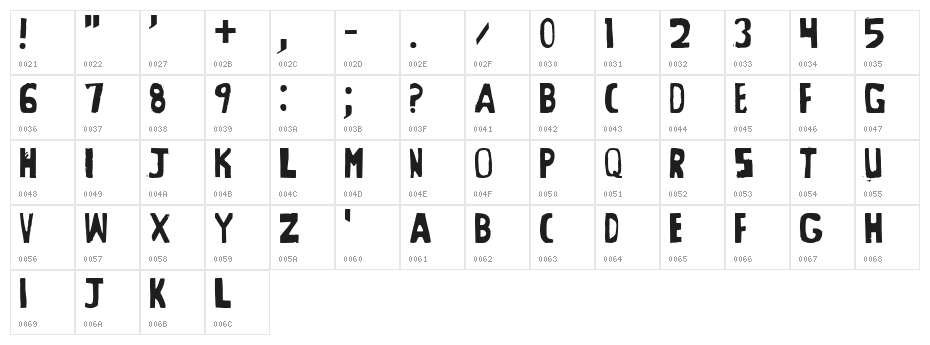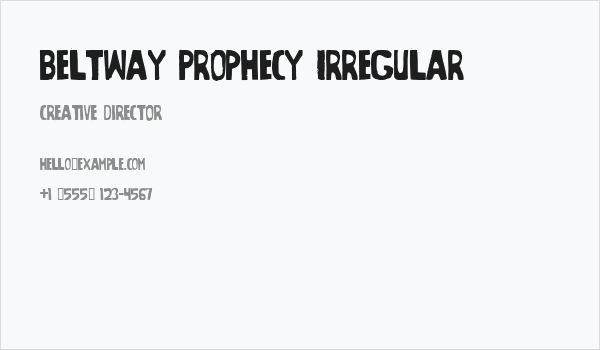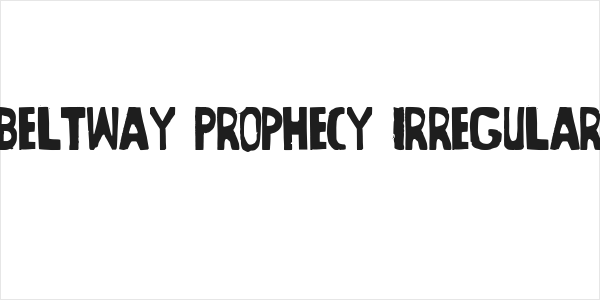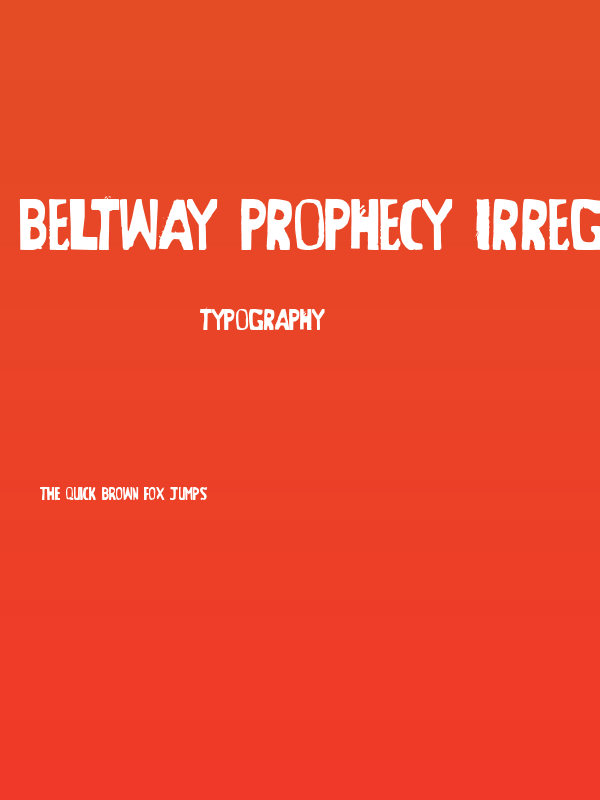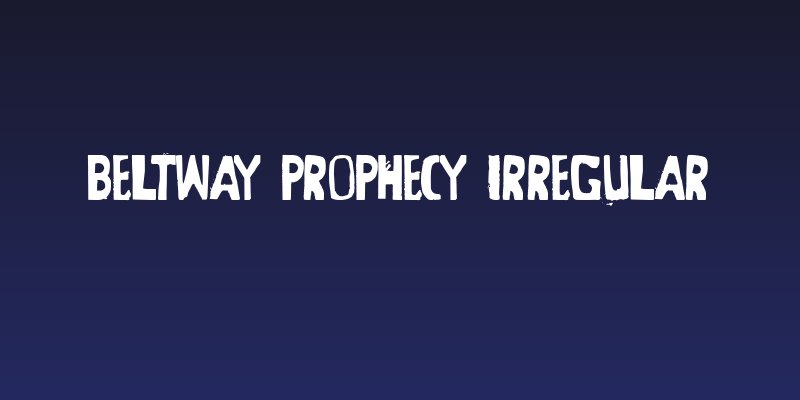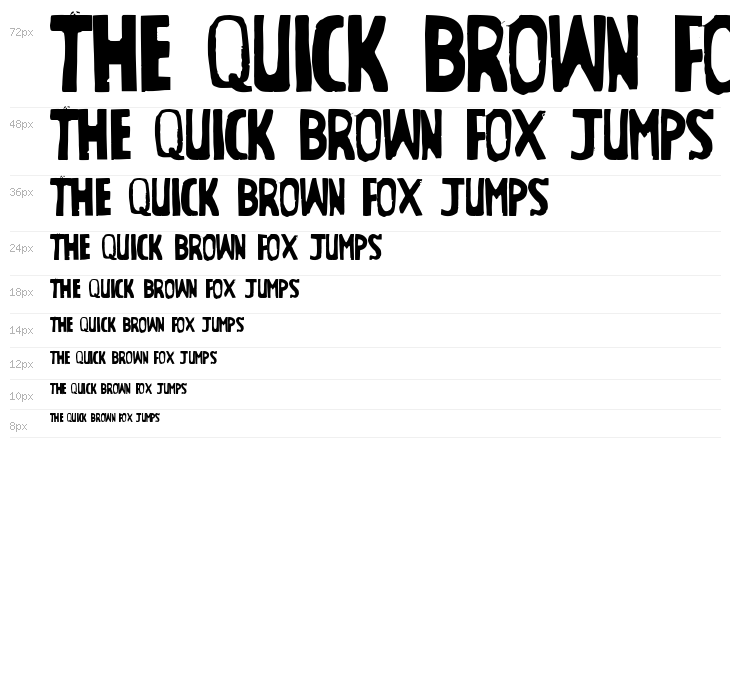
Beltway Prophecy Irregular Font
Beltway Prophecy Irregular Description
This font features an irregular, distressed style with a bold, impactful presence. The characters are unevenly shaped, giving a hand-crafted, artistic feel. The uppercase letters are prominent and slightly rough around the edges, adding to the rustic charm. The numbers and special characters maintain this rugged aesthetic, making the font ideal for projects that require a raw, edgy look. The overall design is unique, with each character exhibiting slight variations, enhancing its organic appearance.
| Proposed Projects | Ideal for posters, album covers, branding for artisanal products, or any project needing a bold, rustic aesthetic. |